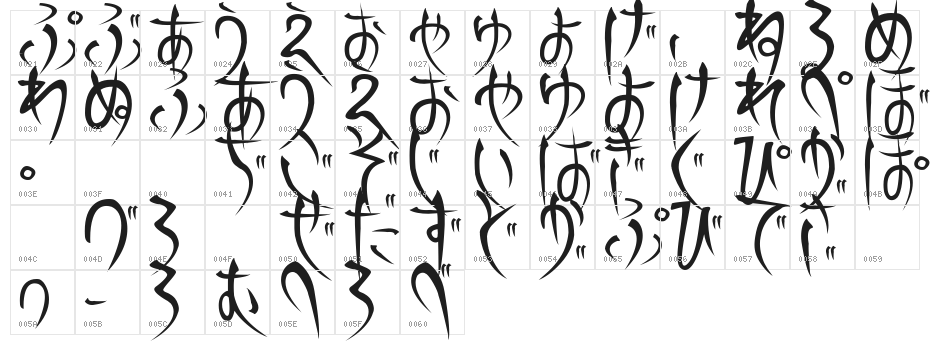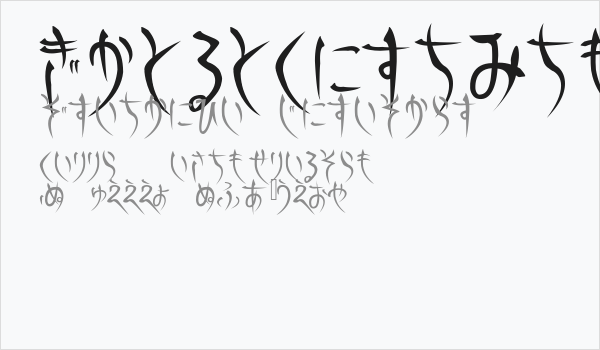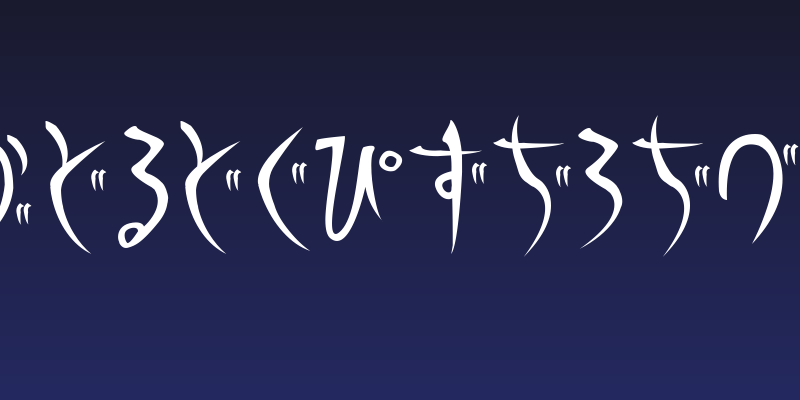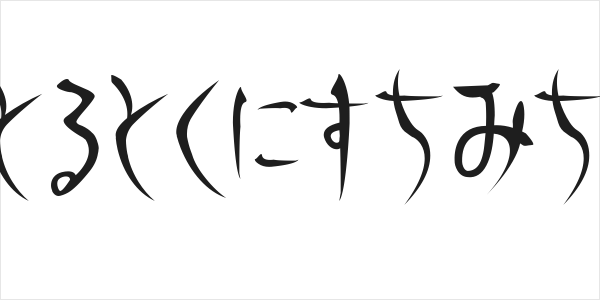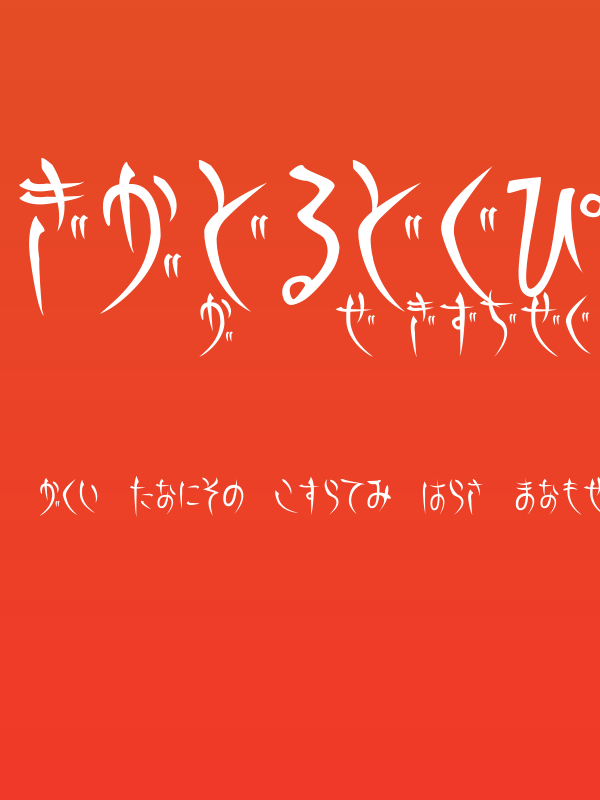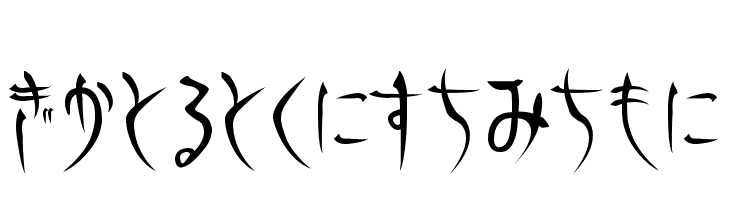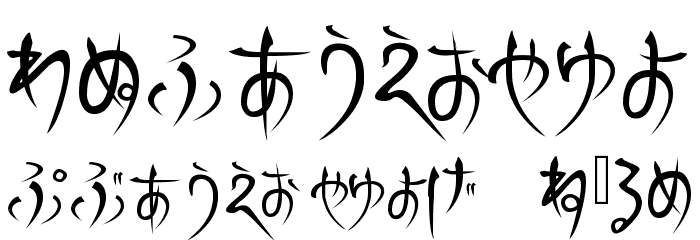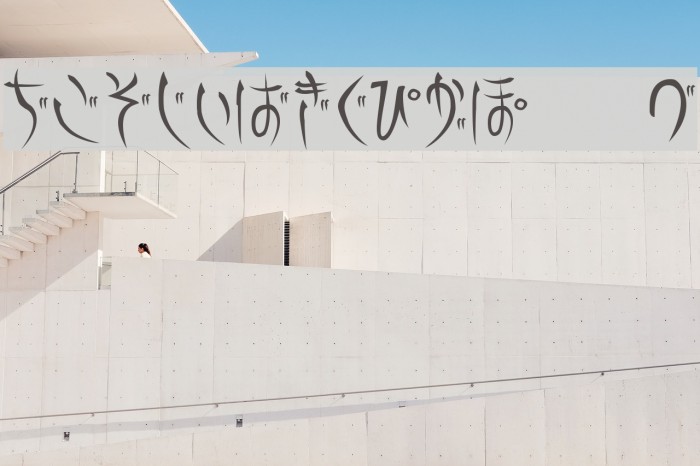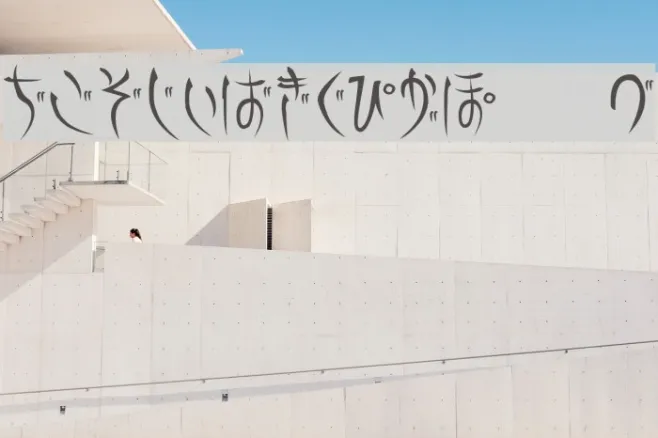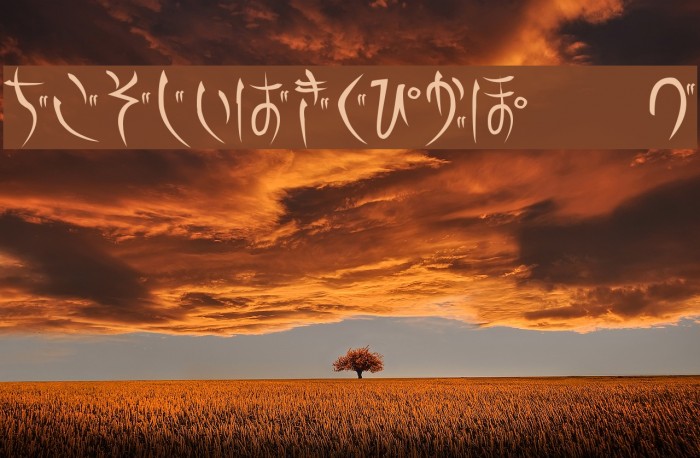
Gts.shiranami Font
Gts.shiranami Description
This font features a dynamic and expressive style, characterized by sharp, angular strokes and a flowing, calligraphic form. The characters exhibit a sense of movement and energy, with varying stroke thickness that adds a lively rhythm to the text. The overall appearance is both artistic and modern, making it suitable for creative and eye-catching designs. The font's unique style is reminiscent of traditional calligraphy, yet it maintains a contemporary edge, making it versatile for various design applications.
| Use Case | Logos, Headlines, Artistic designs |
| Proposed Projects | Ideal for artistic projects, branding, posters, and any design requiring a creative and expressive touch. |